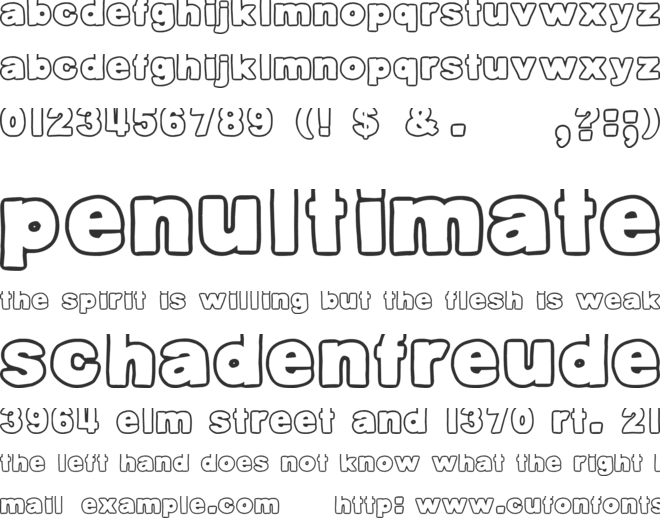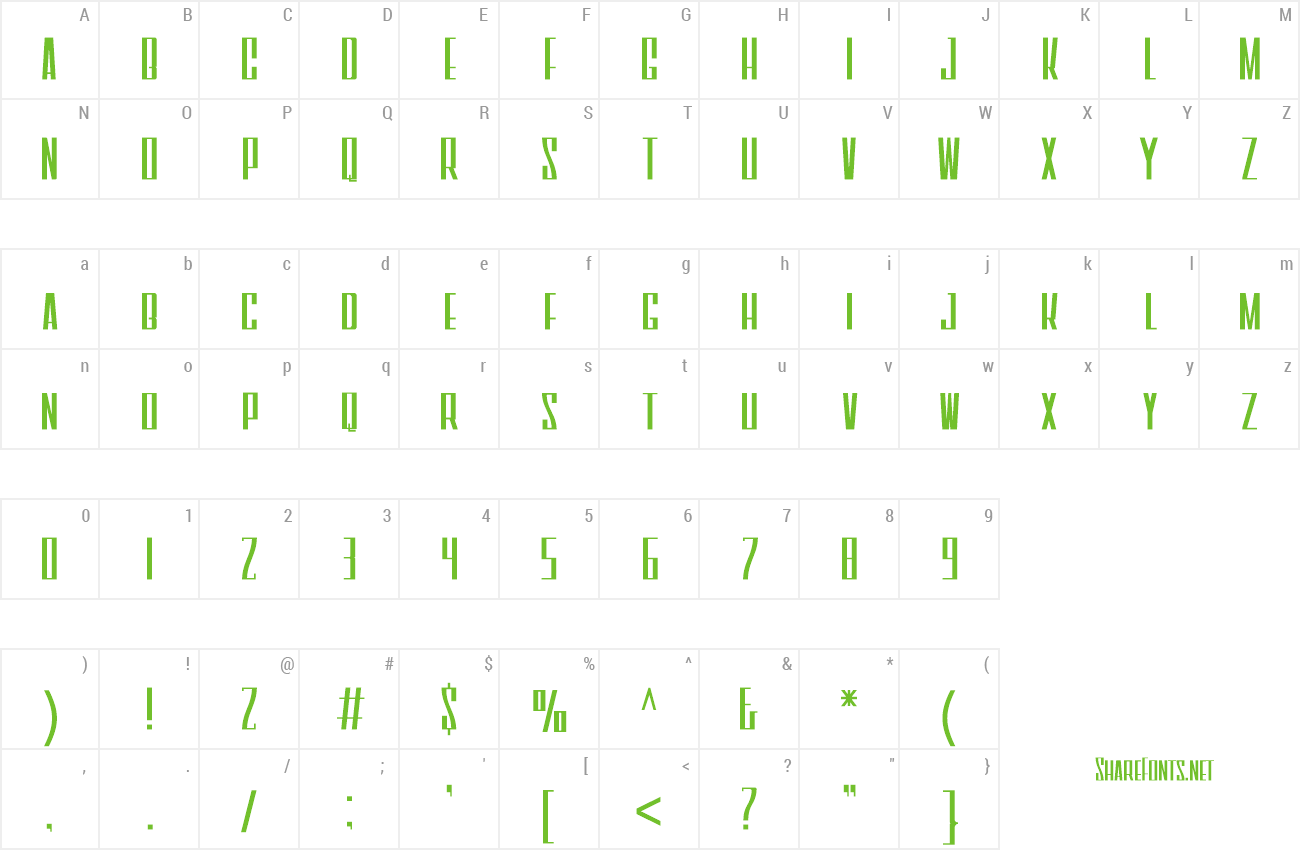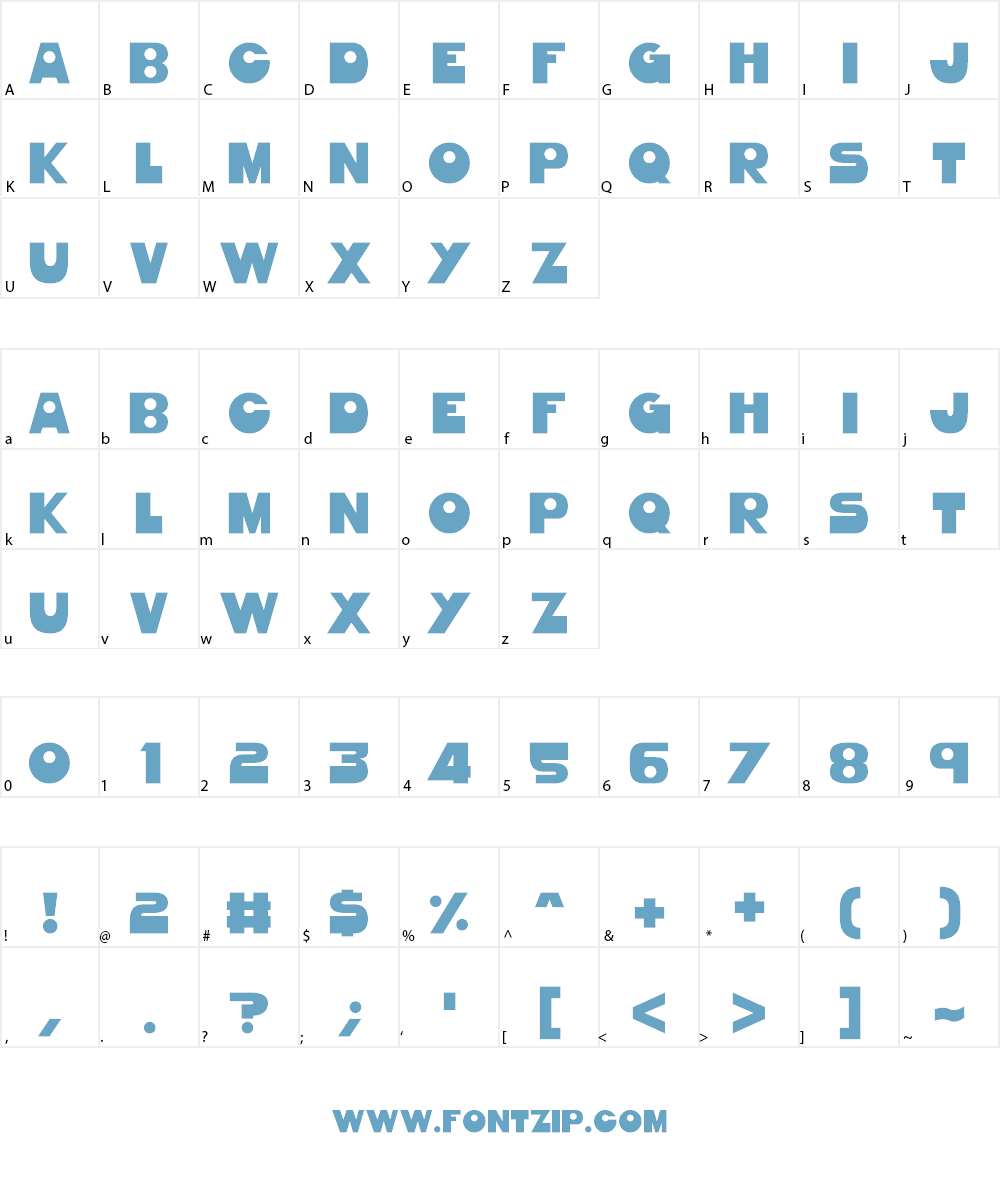
Sans literally means without so a sans serif font does not include any extra stroke at the ends of the letters.
Sans serif fonts examples. This is a heading. Wrapping up the difference between serif and sans serif fonts. Sans serif typefaces first originated in the eighteenth century but didnt see widespread use until the nineteenth century. This page contains just a few.
Examples of sans serif fonts in design. While serif fonts are known to be more traditional sans serif fonts bring that much needed modernistic touch to the design. In the print world serif typefaces are almost universally used for setting running body text however on the web sans serifs dominateon lower resolution displays sans serifs tend to display better however higher resolution displays can better handle the fine. Samples of sans serif typefaces typeface name example 1 example 2 example 3 agency fb designer.
This is a heading. Microsoft sans serif font is a very legible user interface ui font. This is a paragraph. In turn serif fonts are associated with sophisticated and reputable brands that maintain the image of a top notch company.
If you work in the digital marketing. This is a paragraph arial black gadget sans serif. Caleigh huber morris fuller benton class. Because of the difference between serif and sans serif fonts its important to be aware of a few key things.
For more detailed information about this topic please take a look at our font feature the sans serif typefaces. Guenter gerhard lange class. Sans serif fonts add a touch of modernity and straightforward speaking. Examples of sans serif fonts.
Dont mix too many fonts in the one design. Microsoft sans serif font family. This is a paragraph comic sans ms cursive sans serif. Some examples of sans serif types are helvetica frutiger optima and futura.
Examples of serif fonts. Keep it to 2 fonts for a ratio of serif vs sans serif fonts one of each is probably enough. Some of the more popular serif fonts include helvetica open sans proxima nova and arial. These traits make sans serif fonts are a popular choice among many start up and tech companies who want to give people a sense of being cutting edge and more humanistic.
Sans serif fonts as you might already know are the fonts with no projecting lines at the ends. 2 minutes to read. This is a heading. Many people feel that sans serif fonts look cleaner and more modern while serif fonts look more traditional more book like.